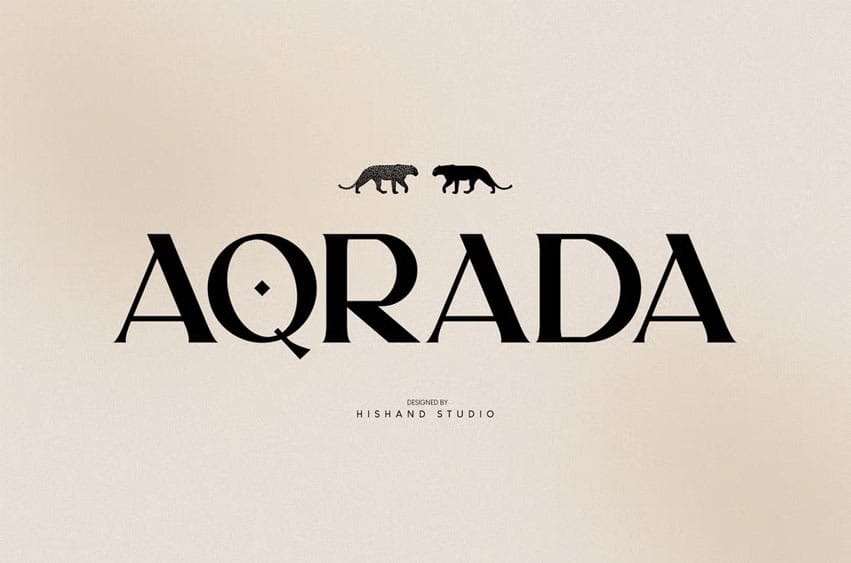
Aqrada Font is an elegant display with an aesthetic look.
Perfect for those needing a touch of elegance, classy, stylish, beautiful, bold type, and modernity for their design.
Complete with
- ligatures
- alternates
- regular
- hollow
- icon
- kerning
- multilingual support